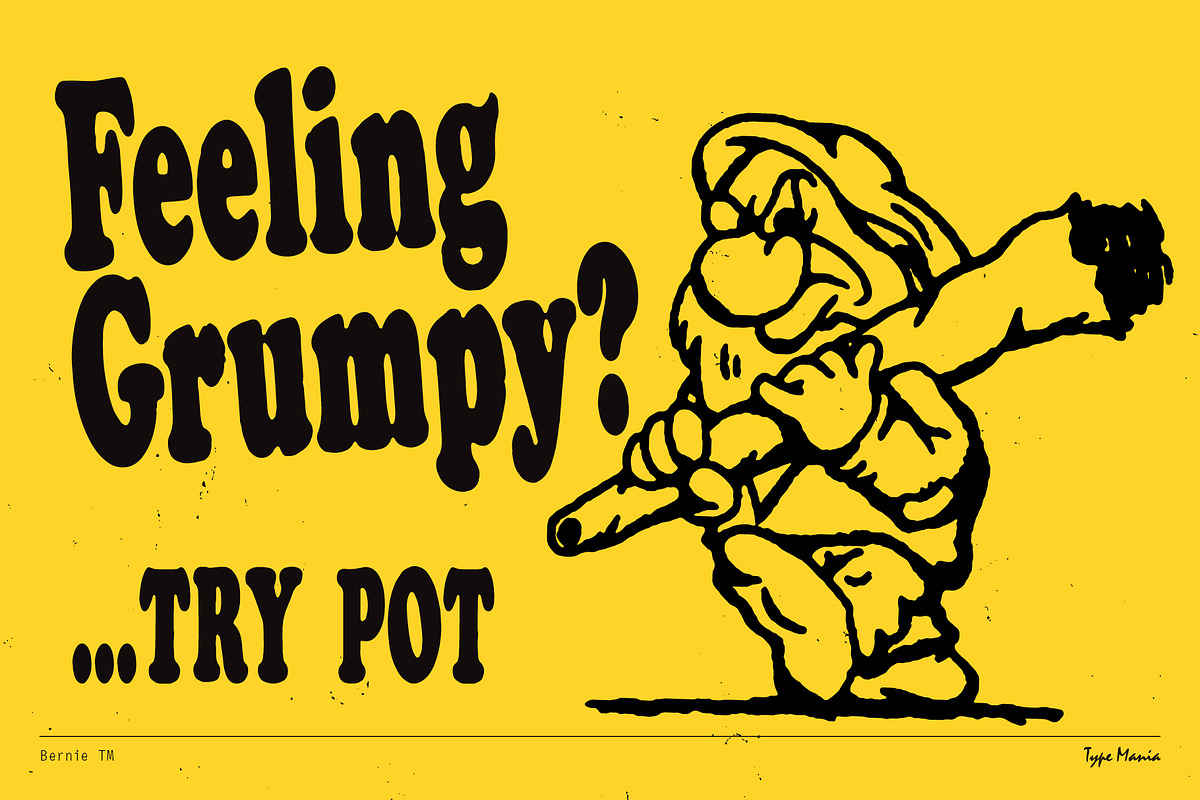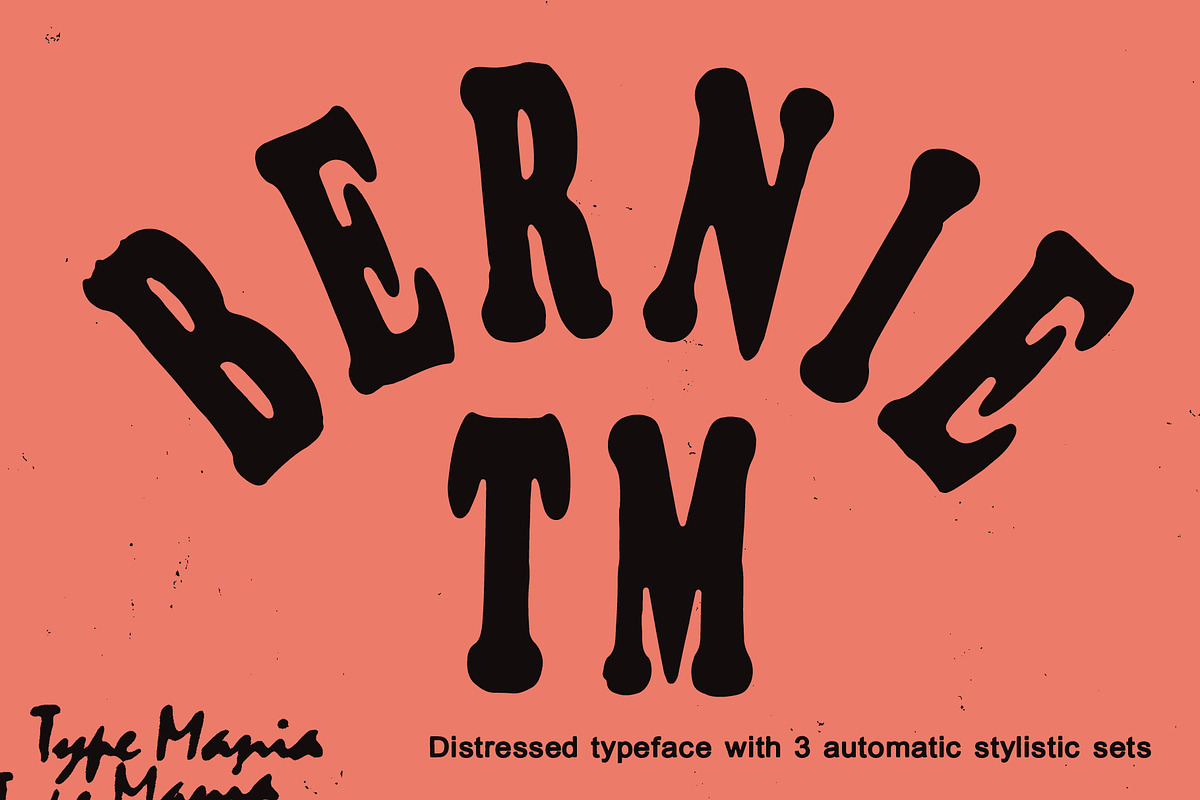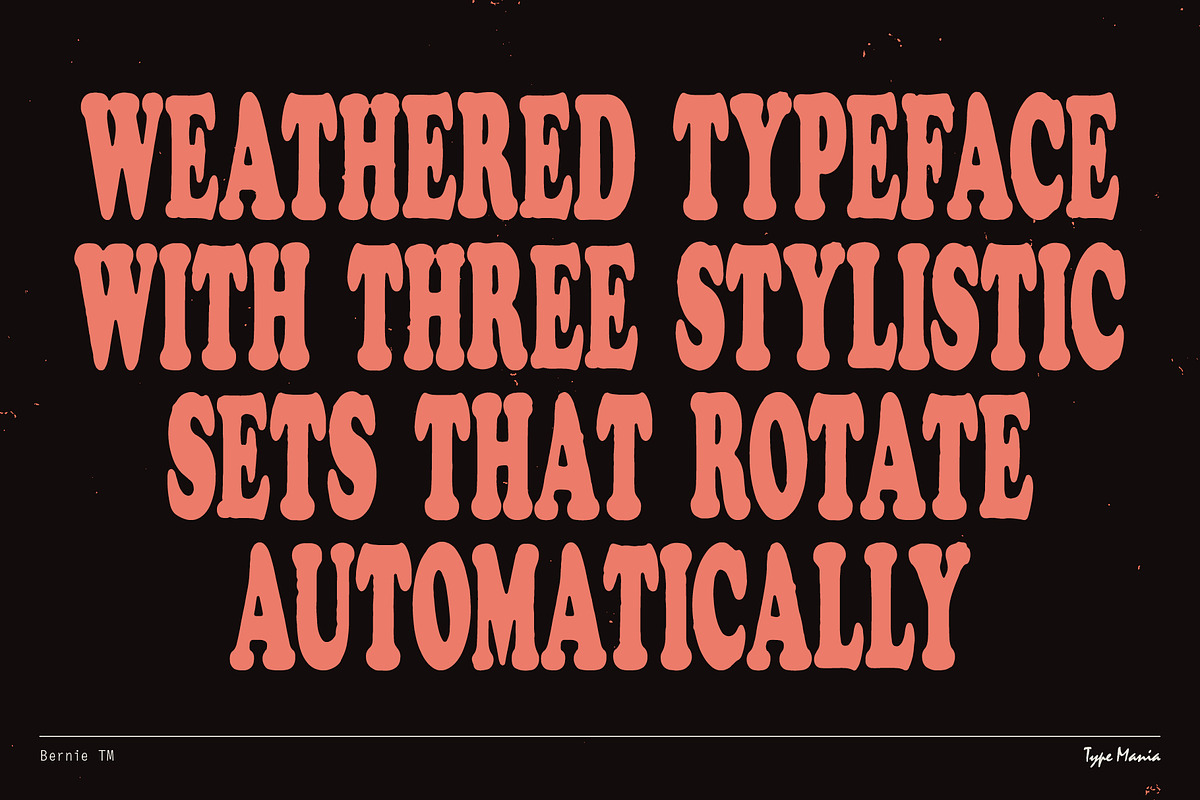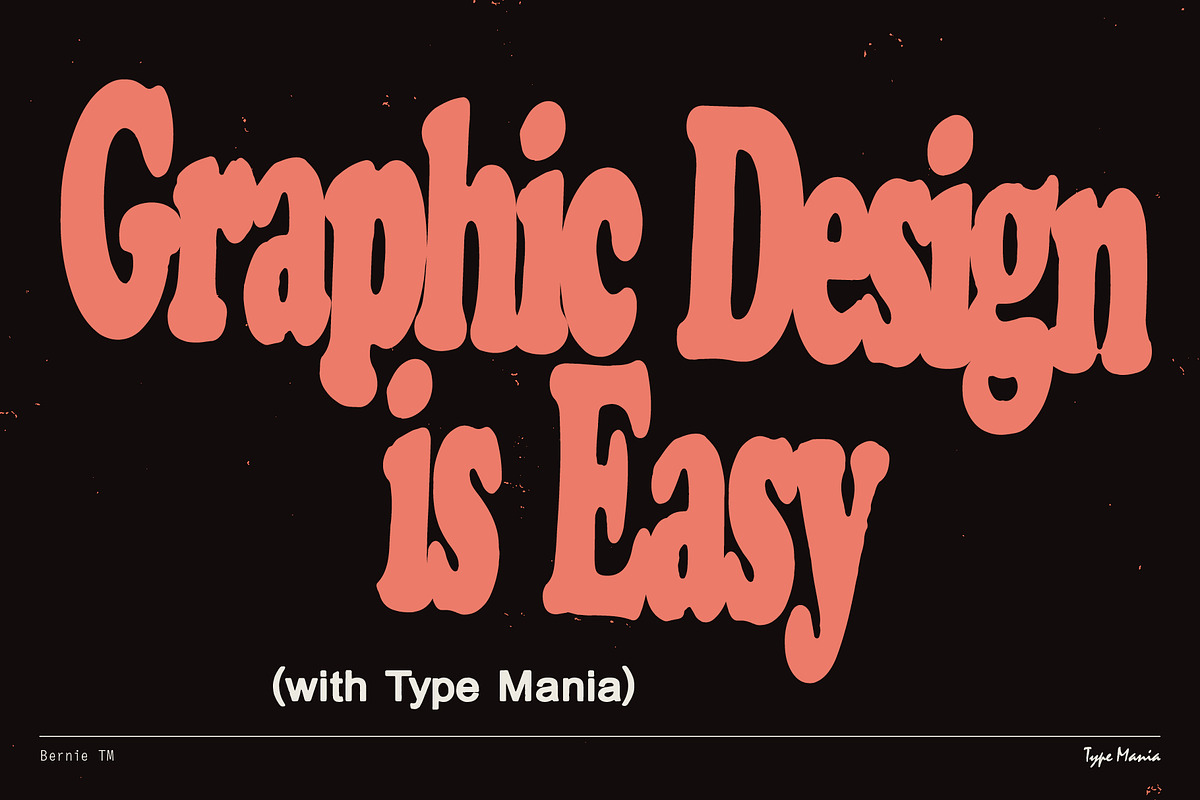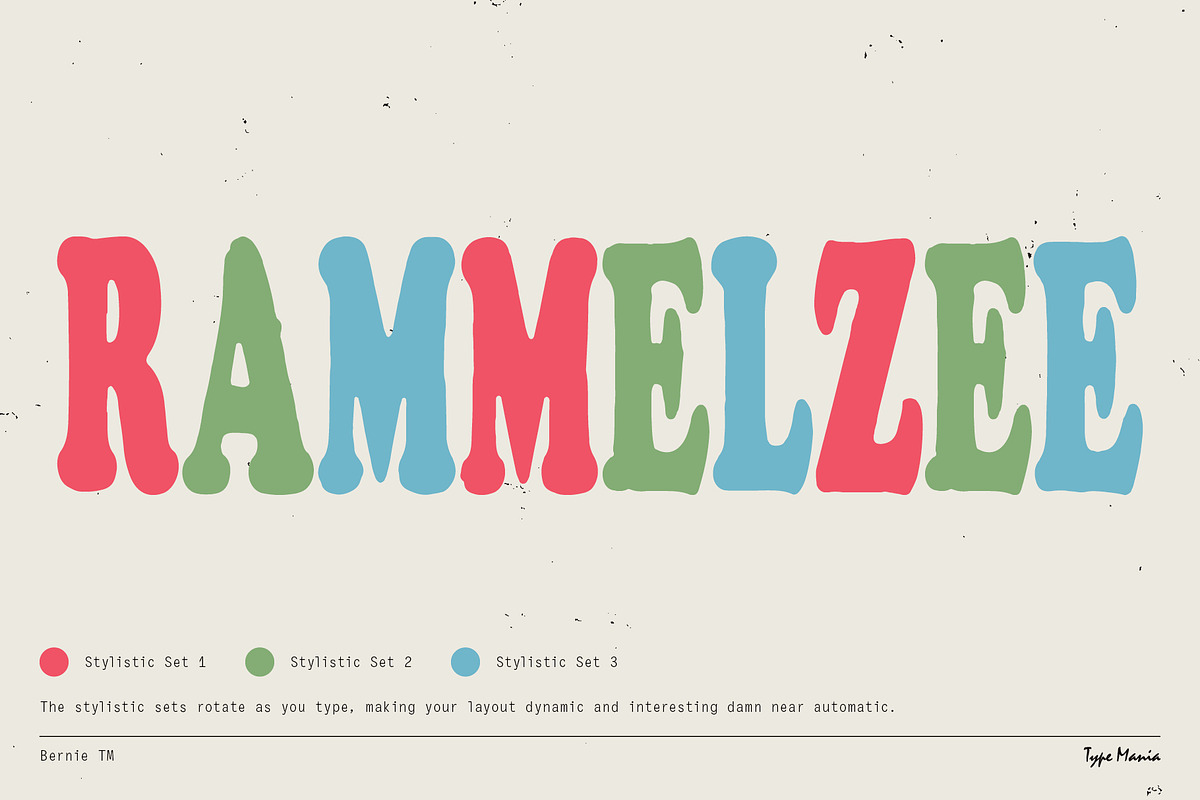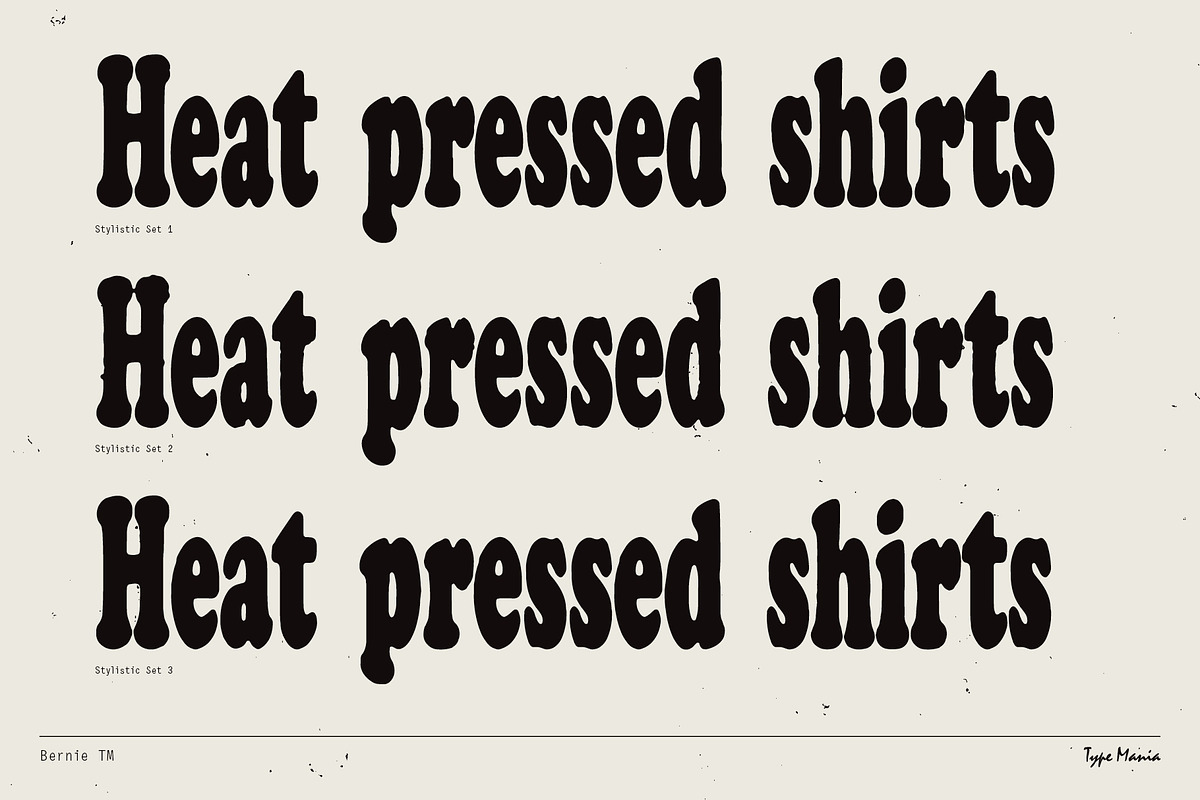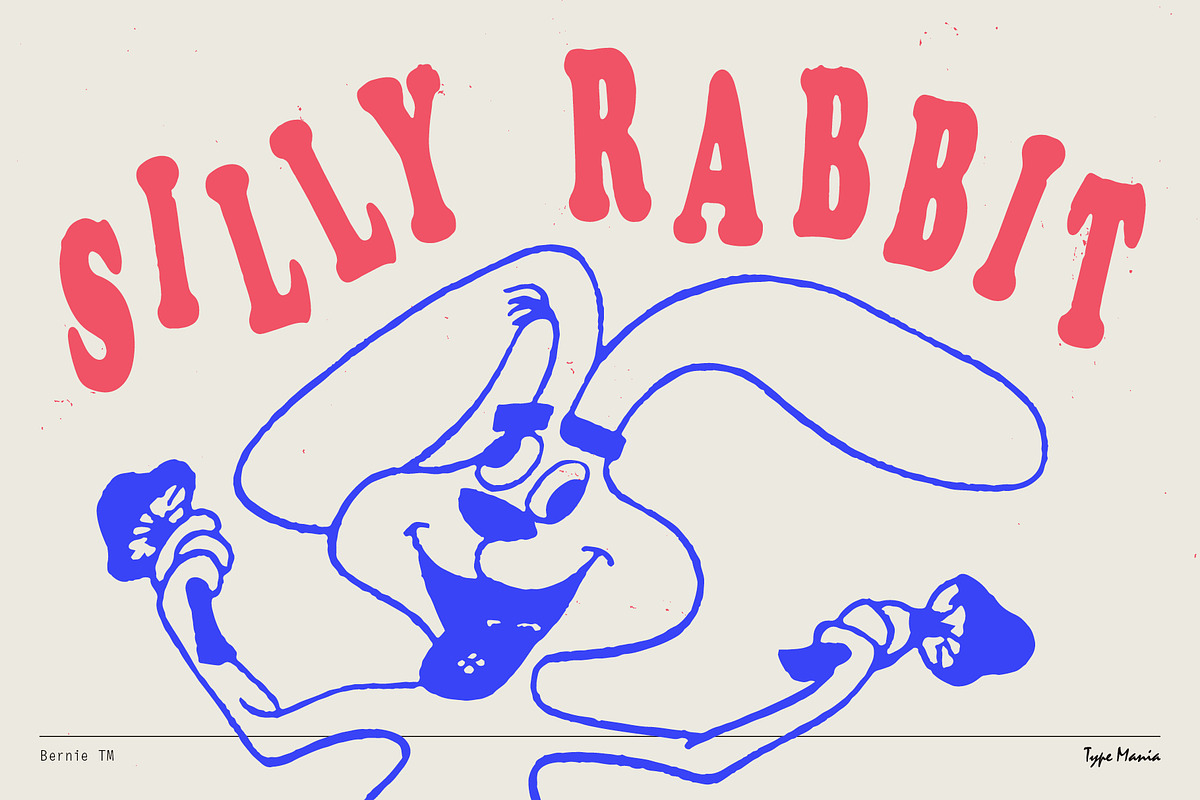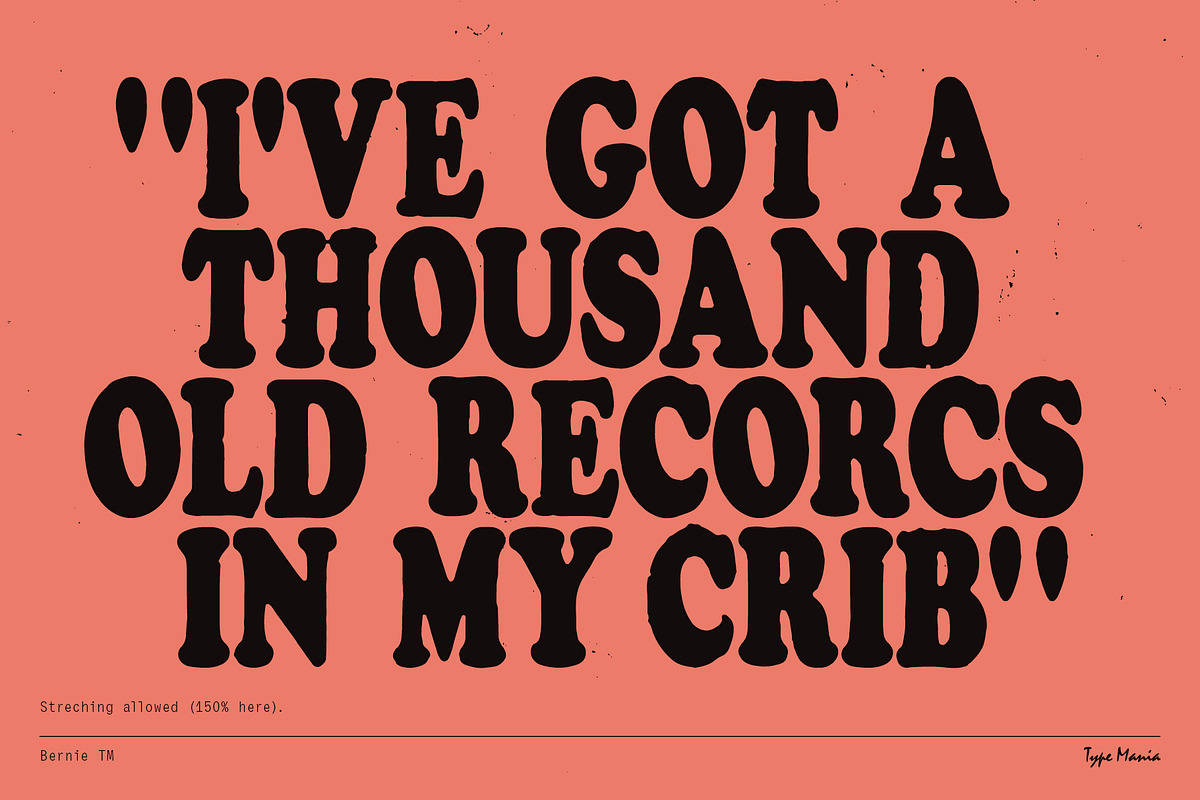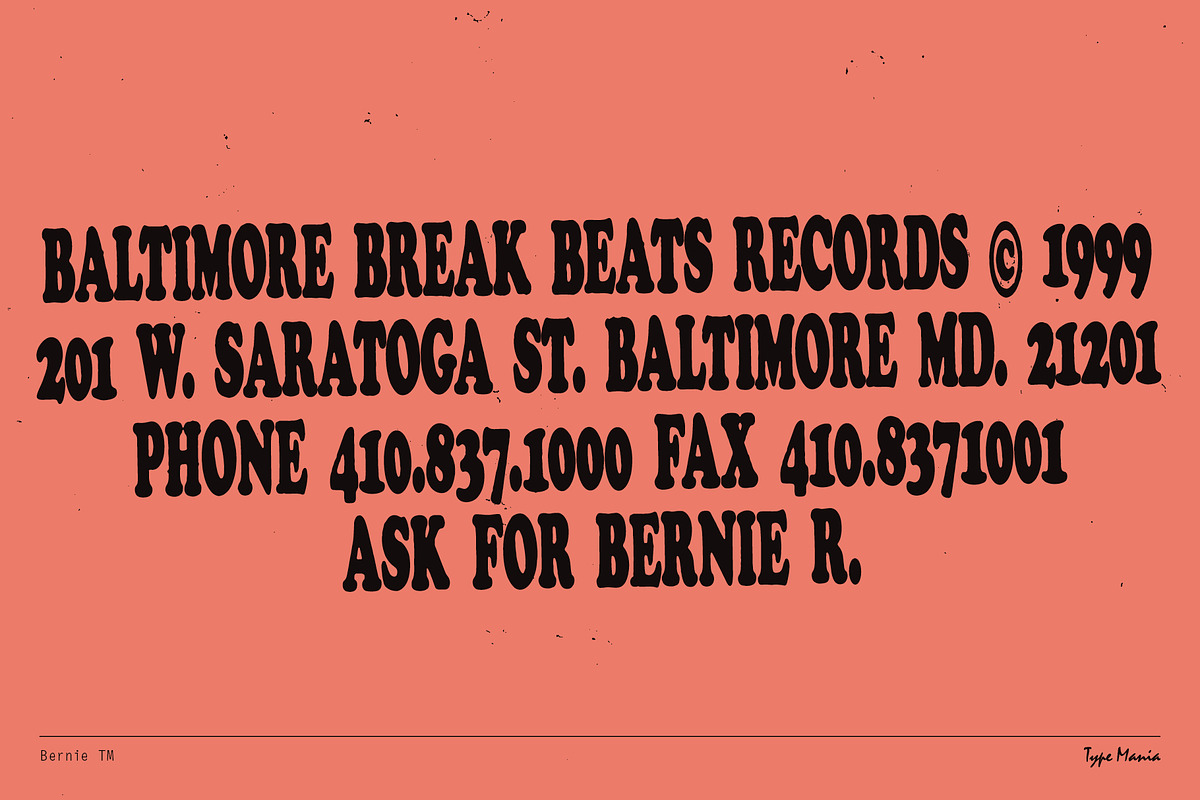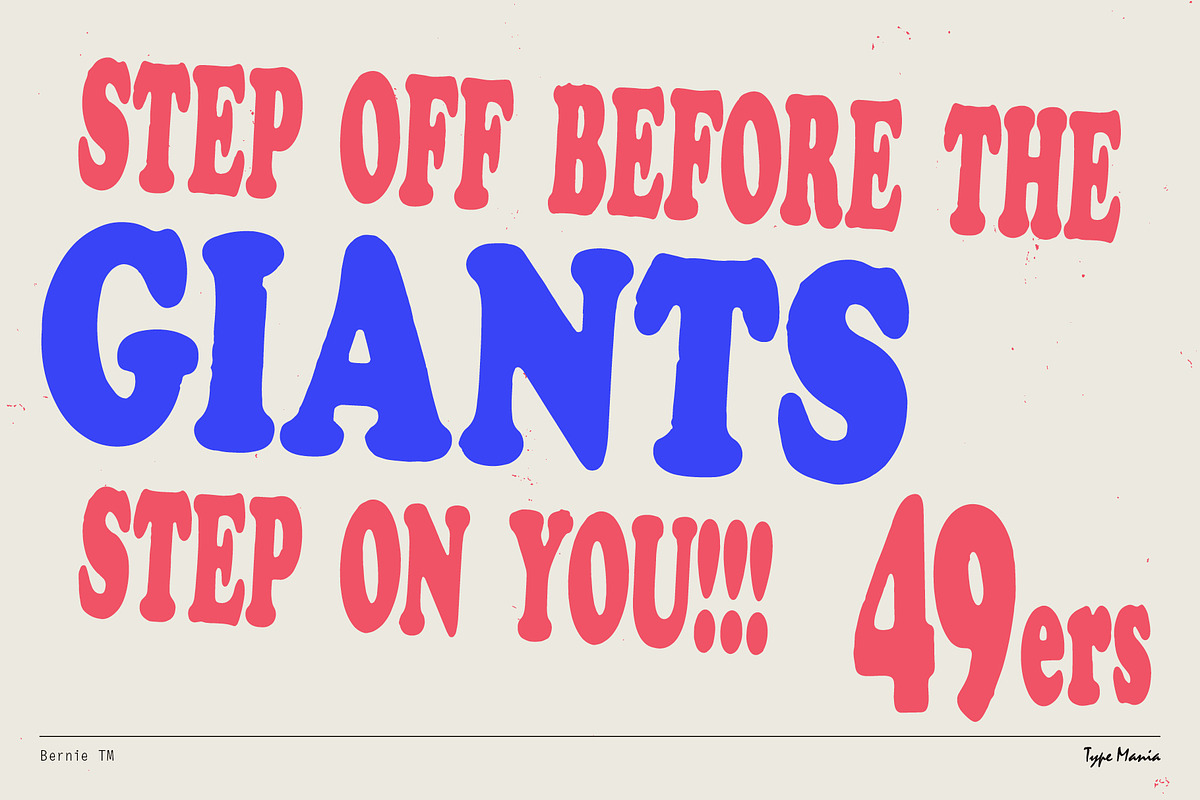
Bernie TM – XXX-Bold Cozy Type
Ask for Bernie TM 🫡 With three distinct stylistic sets rotating automatically, our font offers versatility, lending each composition its own unique flair with a natural, homegrown appeal. Whether for print or digital, it's guaranteed to cozify any project.
OpenType features
- 3 stylistic sets
- The font is programmed to automatically shift between the stylistic sets